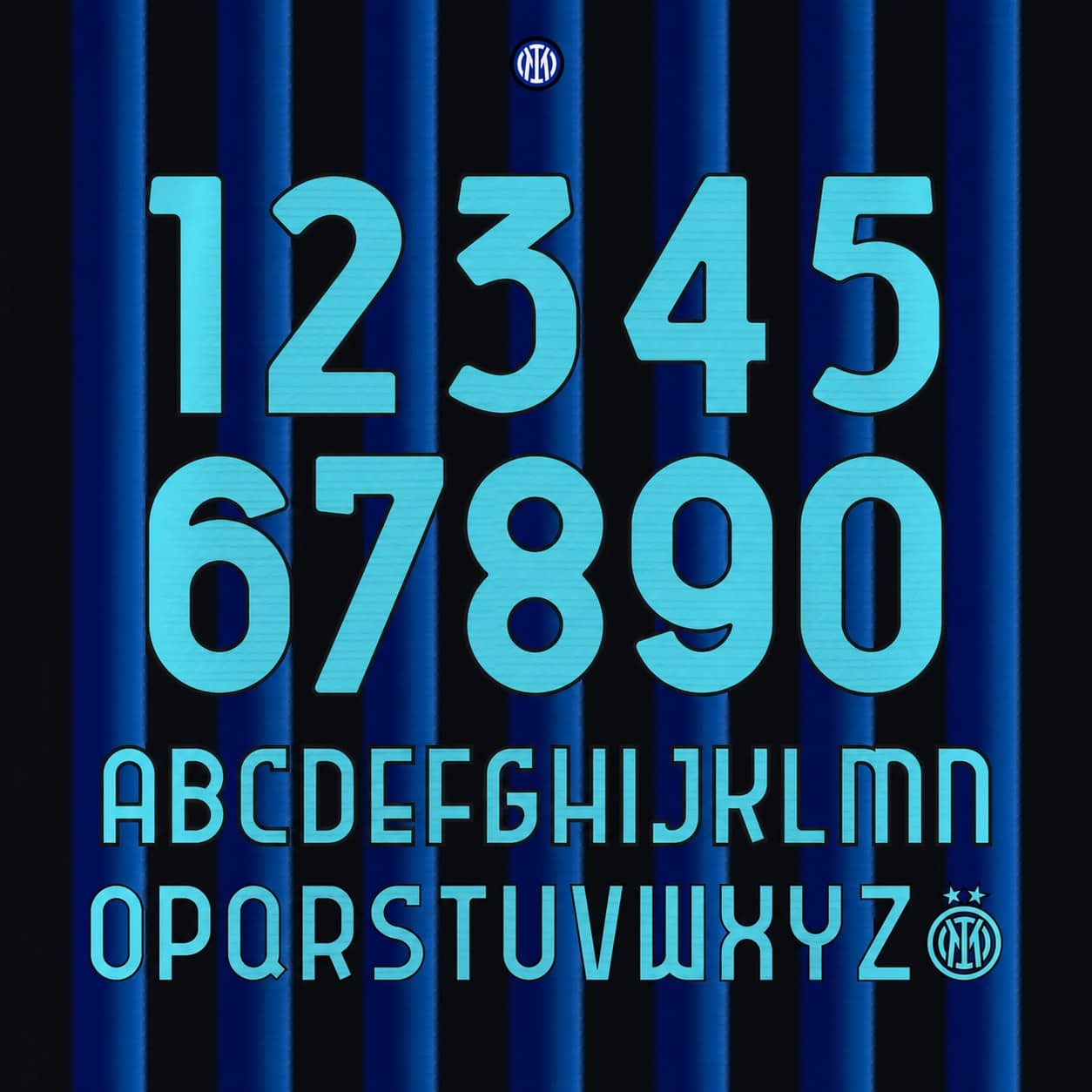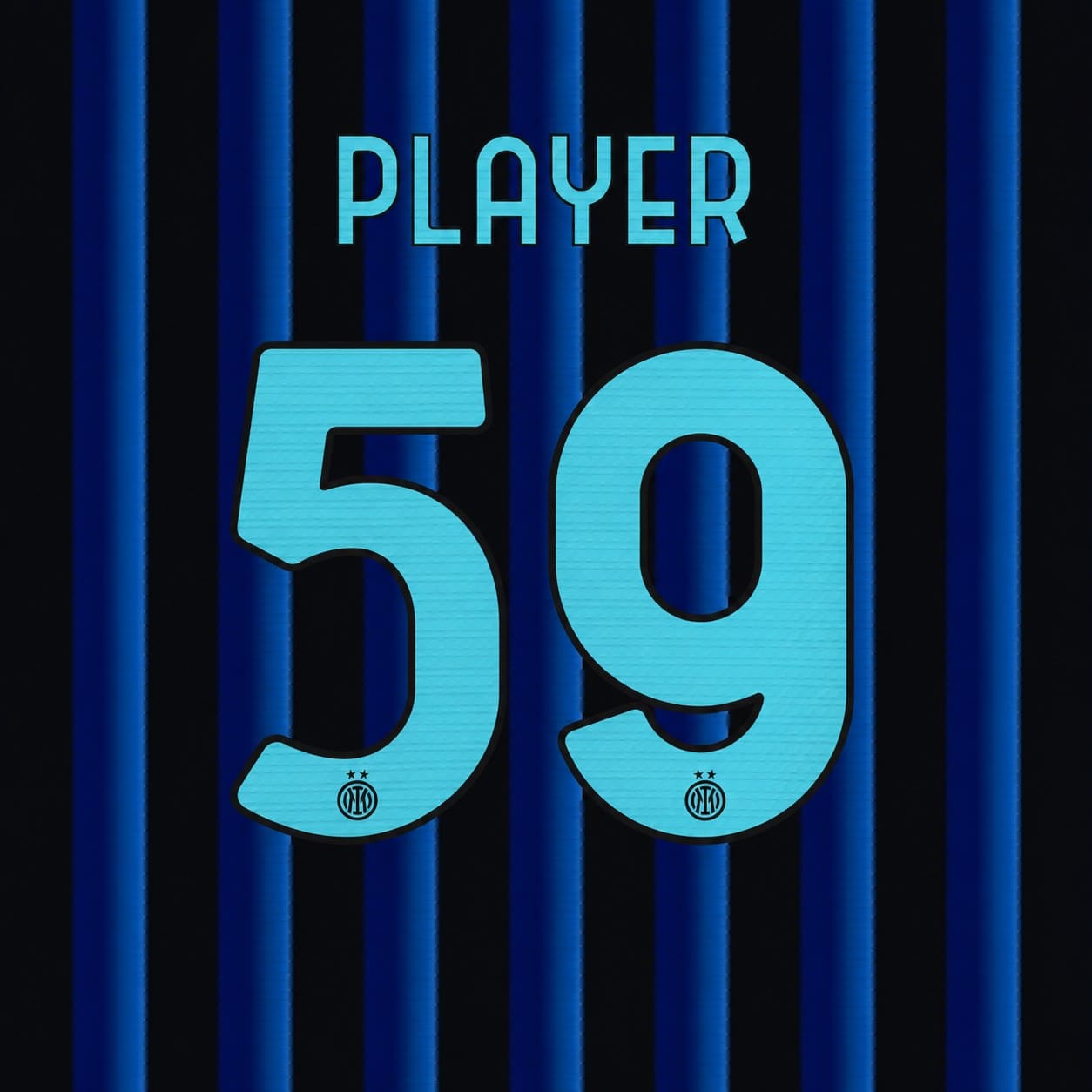
Complete Inter Milan 2026/27 font set — every letter and every number in one kit, in this season’s lettering style, sky-blue colourway as shown.
- Full set included: all letters A–Z + all numbers 0–9, exactly as shown
- Fine crest detailing inside the numbers